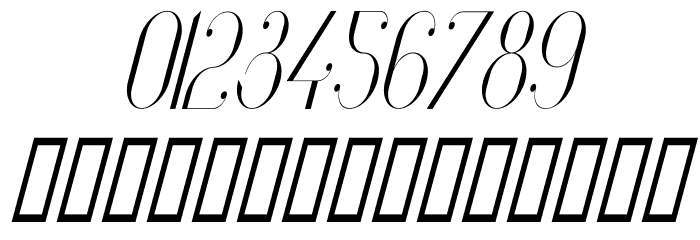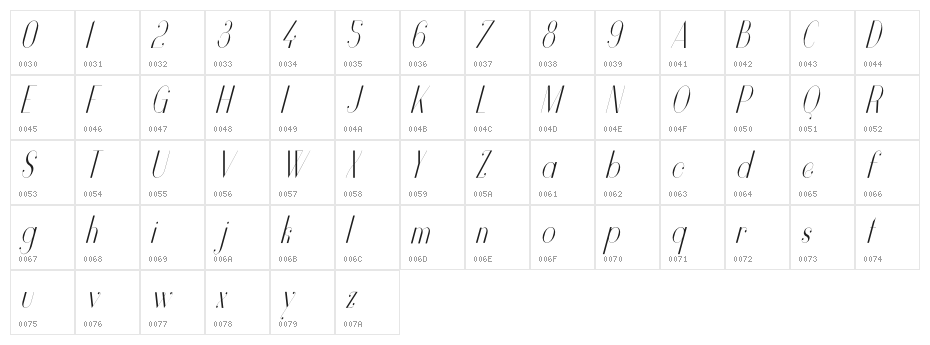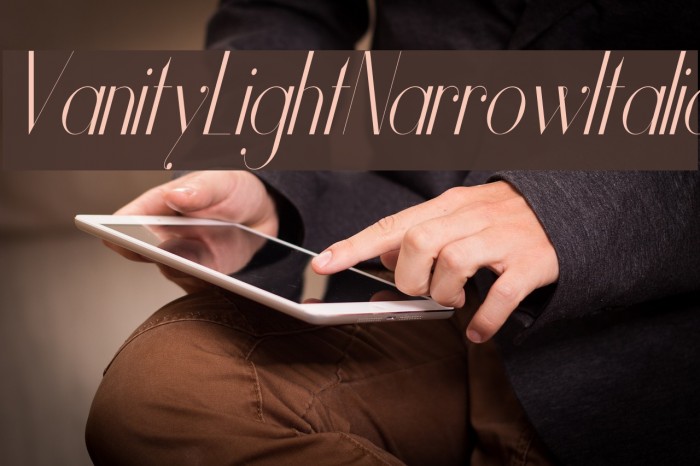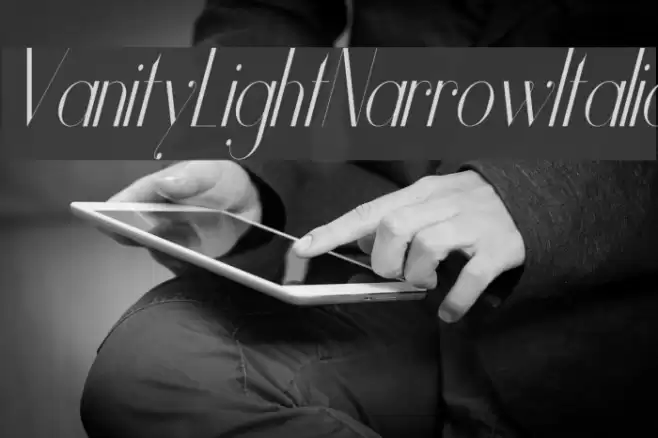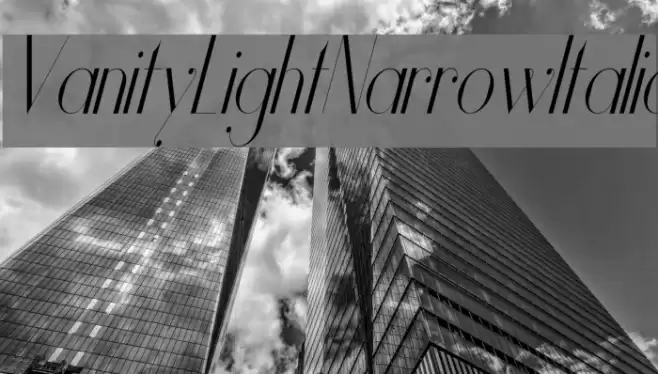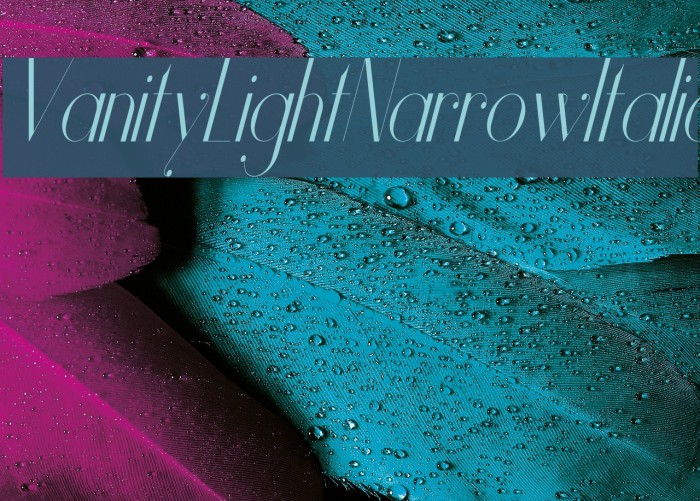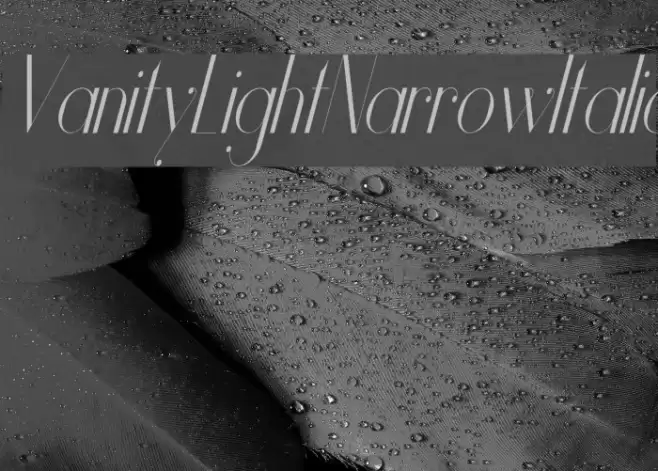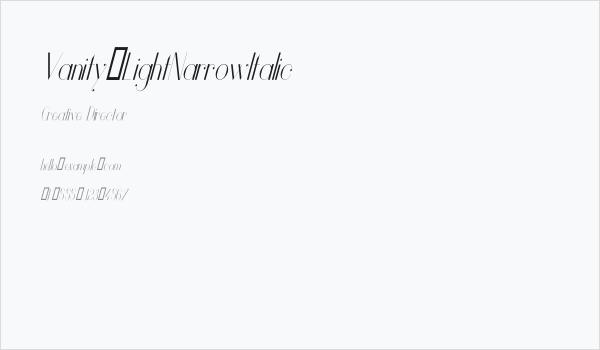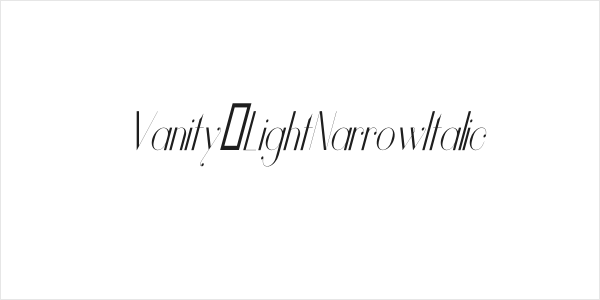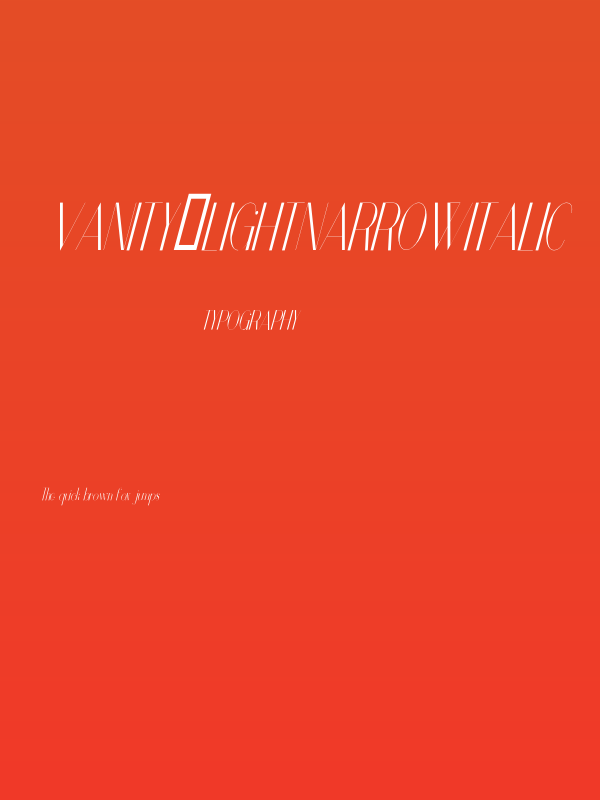
Vanity-LightNarrowItalic Font
Vanity-LightNarrowItalic Description
This font features an elegant and sophisticated design with a light and narrow structure. The italicized characters add a sense of movement and fluidity, making it visually appealing. The uppercase letters are tall and slender, while the lowercase letters maintain a consistent style with subtle curves and flourishes. The numerals are distinct and maintain the same narrow and italicized form, ensuring uniformity across the font. The special characters are designed to complement the overall aesthetic, adding a touch of refinement. This font's delicate strokes and high contrast between thick and thin lines contribute to its graceful appearance.
| Overall Style | Elegant and sophisticated |
| Proposed Projects | Ideal for luxury branding, fashion magazines, wedding invitations, and high-end product packaging. |